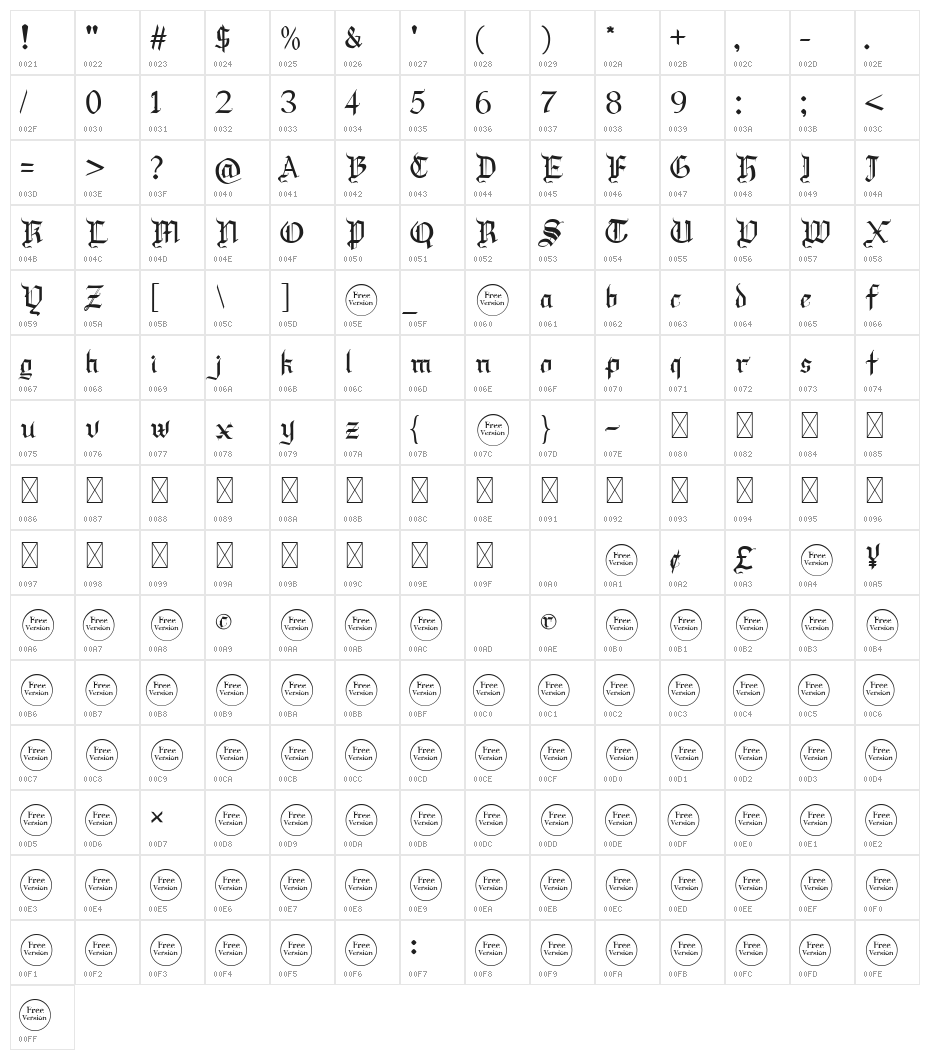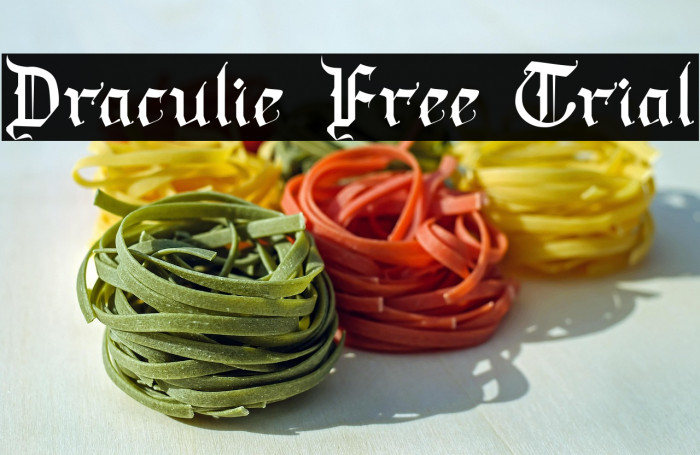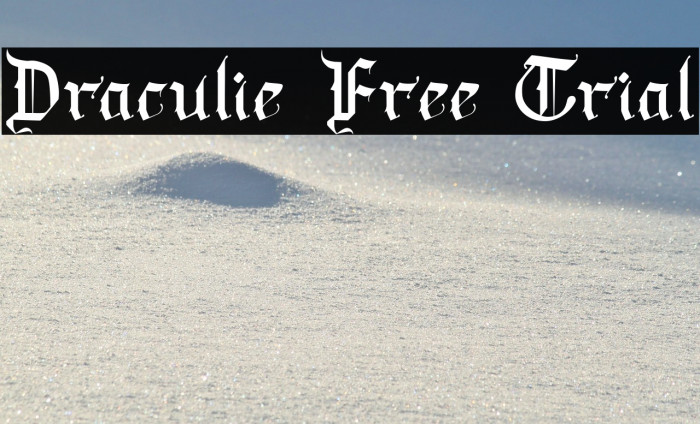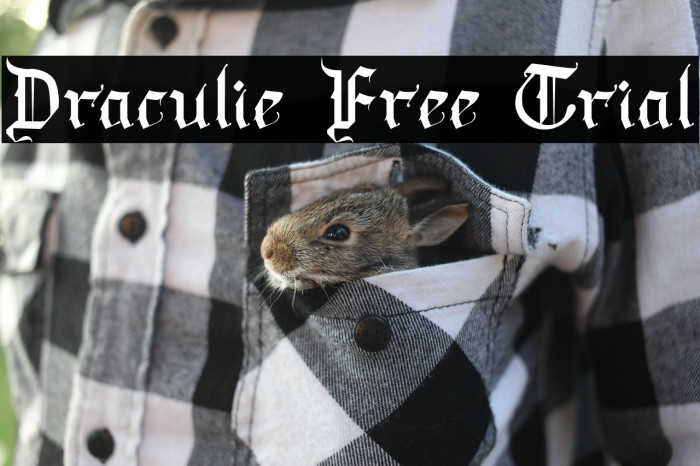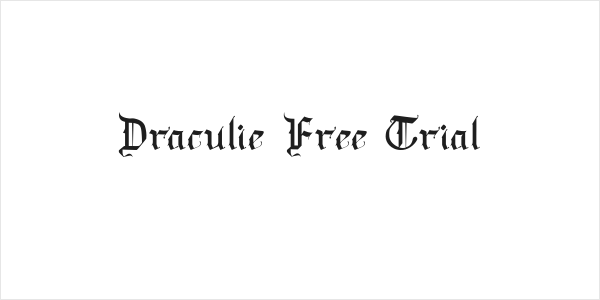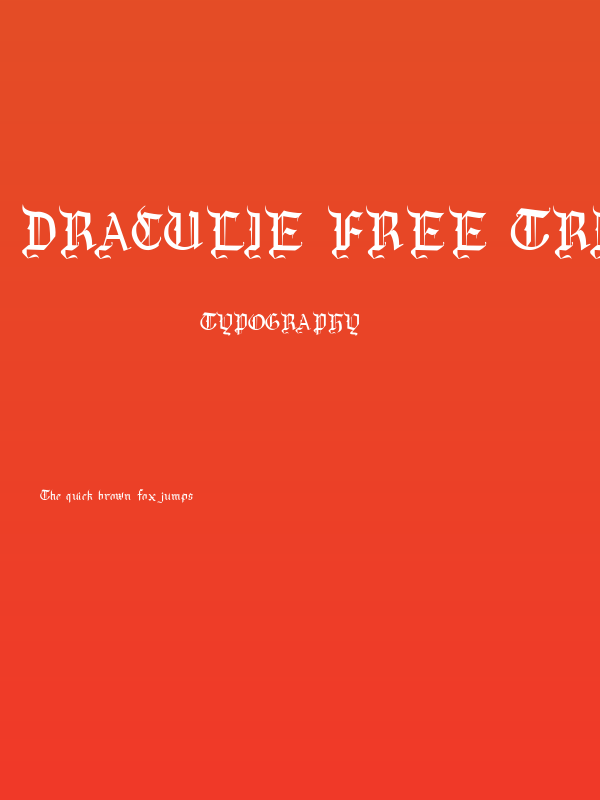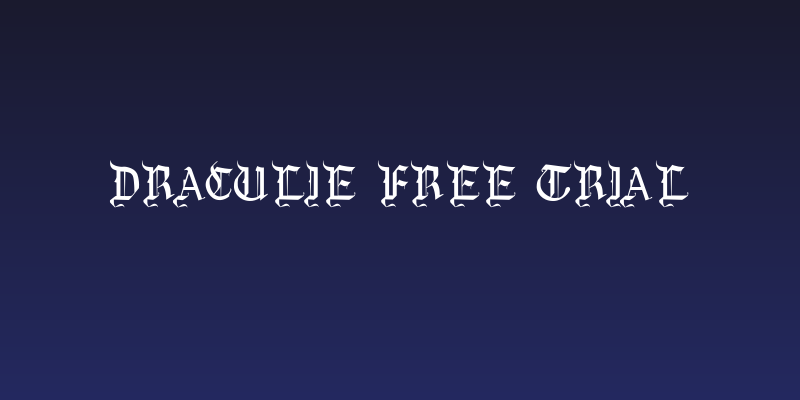
Draculie Free Trial Font
Draculie Free Trial Description
This font features a classic blackletter style, characterized by its intricate and angular letterforms. The uppercase letters exhibit a strong, bold presence with sharp edges and pointed serifs, while the lowercase letters maintain a consistent style with a slightly more condensed form. The numerals are distinct, with a traditional gothic flair that complements the overall aesthetic. Special characters are designed to match the ornate style, adding a cohesive look across all glyphs. This font is perfect for creating a dramatic and historical feel, reminiscent of medieval manuscripts and traditional calligraphy.
| Proposed Projects | Ideal for historical documents, gothic-themed designs, book covers, posters, and branding that requires a dramatic and traditional touch. |